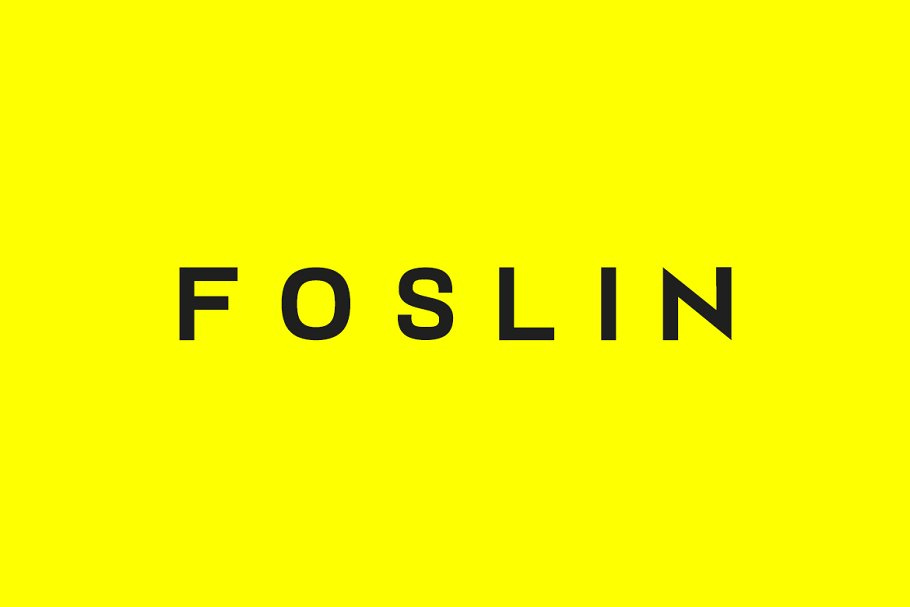
Foslin Font
Foslin Font is perfect for contemporary design studios, modern creative agencies, innovative tech startups, progressive architectural firms, cutting-edge product design, and forward-thinking brand consultancies. Its sophisticated character makes it ideal for digital innovation companies, contemporary art galleries, modern furniture brands, creative co-working spaces, design thinking workshops, and any project requiring creative intelligence with contemporary sophistication and innovative design excellence.
This font is exciting because it represents the perfect fusion of creative inspiration and systematic design thinking while delivering exceptional functionality for modern creative communications. The thoughtfully balanced letterforms demonstrate sophisticated understanding of contemporary design principles, creating typography that appeals to creative professionals who appreciate both artistic vision and methodical execution in their design practice and brand communications.
The Foslin Font family typically includes Light, Regular, Medium, and Bold weights with creative alternates, design-inspired ligatures, and contemporary elements that enhance its innovative personality. This comprehensive collection enables designers to create sophisticated brand systems that maintain creative authenticity while providing flexibility for various design applications requiring both artistic expression and professional credibility in competitive creative markets.
Whether you're developing identity systems for design consultancies, creating materials for creative industry events, or designing promotional content for innovative design services, Foslin Font Free Download delivers the creative sophistication and contemporary appeal that resonates with design-conscious audiences worldwide. Its inspiring presence ensures memorable brand recognition across digital platforms and print materials, making it perfect for websites, mobile applications, and creative campaigns that celebrate design innovation, artistic vision, and the transformative power of contemporary creative thinking with professional excellence and cutting-edge aesthetic standards.